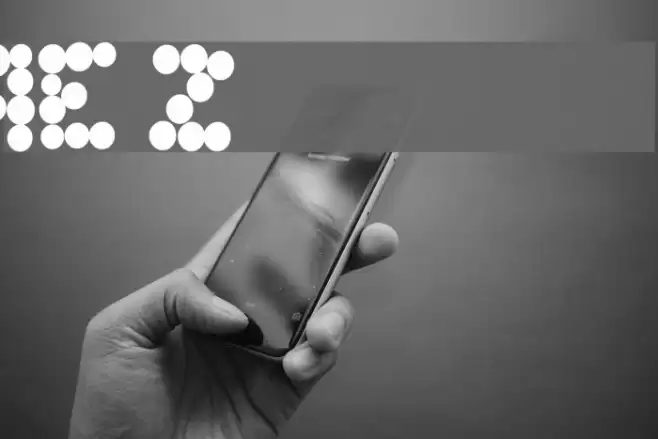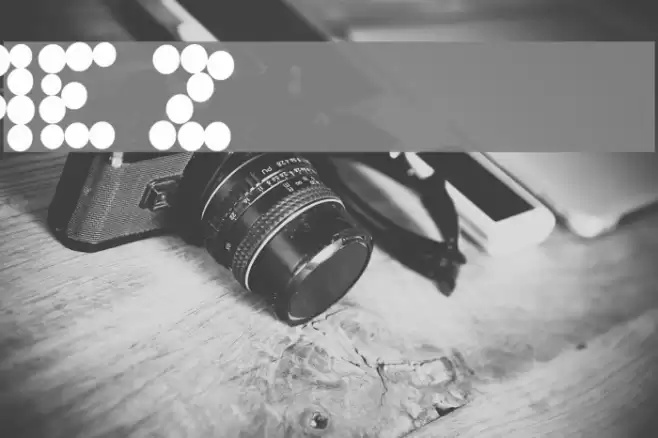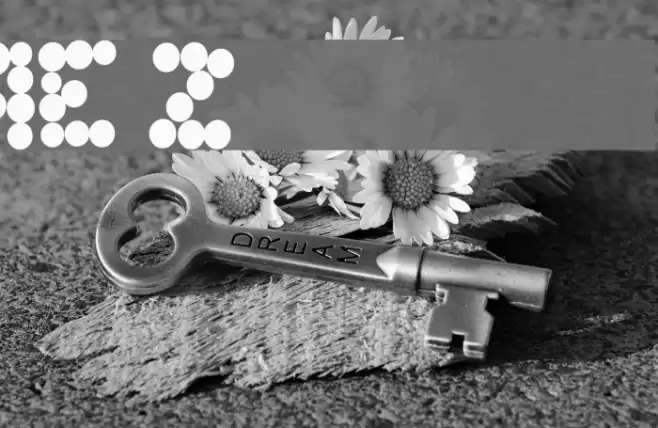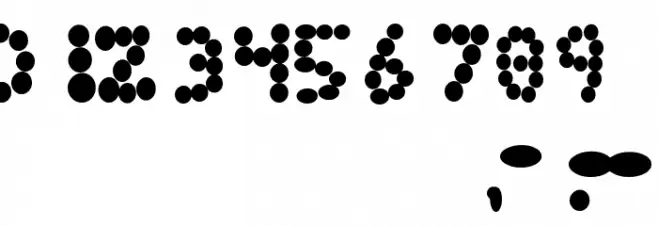
AEZzipedity Font
AEZzipedity Description
This font features a playful and unique design, with each character composed of a series of circular dots. The rounded elements create a bubbly and whimsical appearance, making it stand out as a decorative choice. The uppercase and lowercase letters maintain consistent dot patterns, ensuring readability while adding a touch of fun. Numbers and special characters follow the same dotted style, providing a cohesive look across all elements. This font is ideal for projects that require a lighthearted and creative touch, such as children's books, party invitations, or playful branding.
A playful, dotted font with a whimsical and decorative style from bubble letter fonts.
- Proposed Projects: Ideal for children's books, party invitations, playful branding, and creative designs.
- Use Case: Headlines, Logos, Creative projects